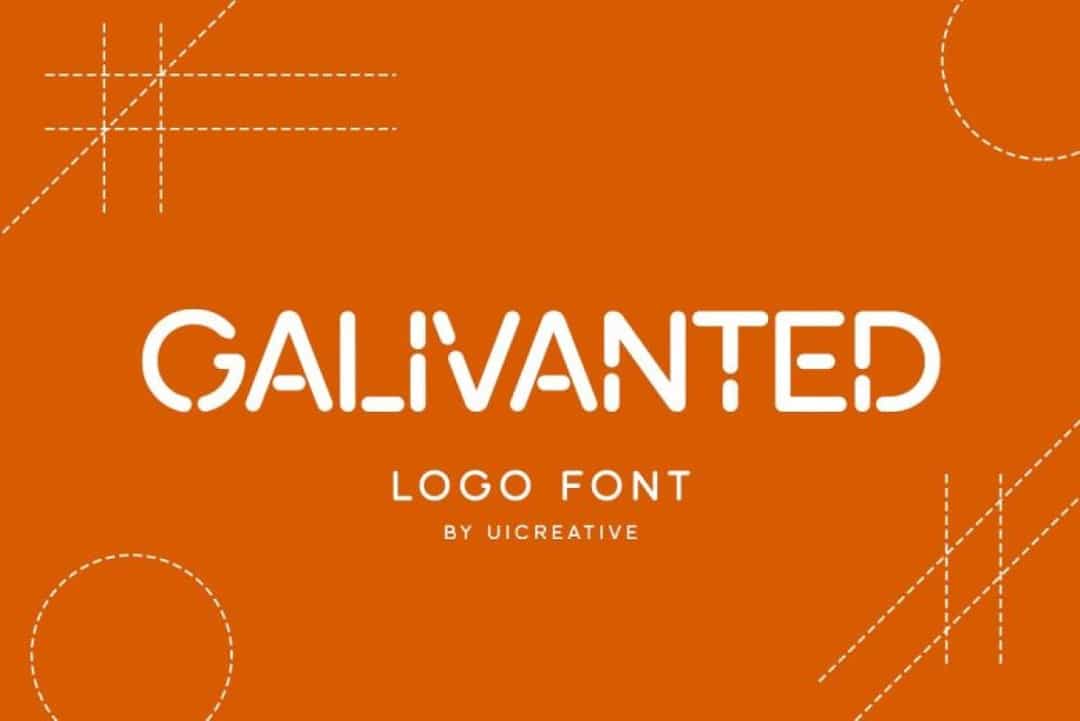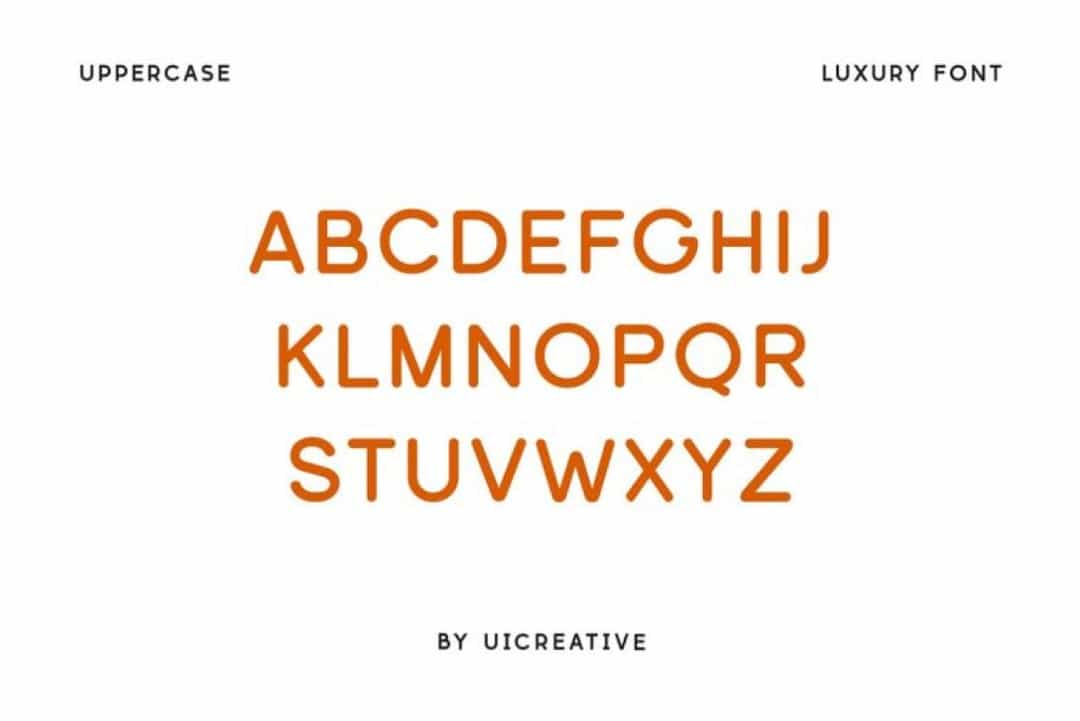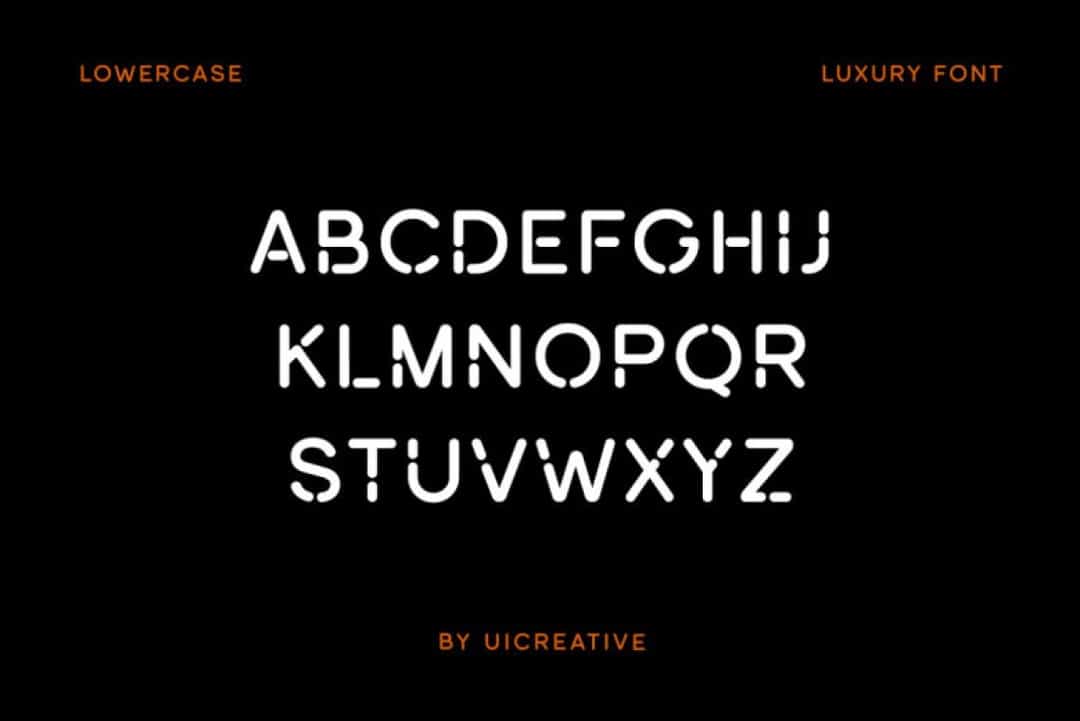
Galivanted is an elegant and contemporary sans serif font designed to make any design stand out. Perfect for logos, stationery, signature wedding invitations, typography quotes magazines or book covers as well as headers for websites as well as clothing branding, packaging design and much more – Galivanted can do it all.